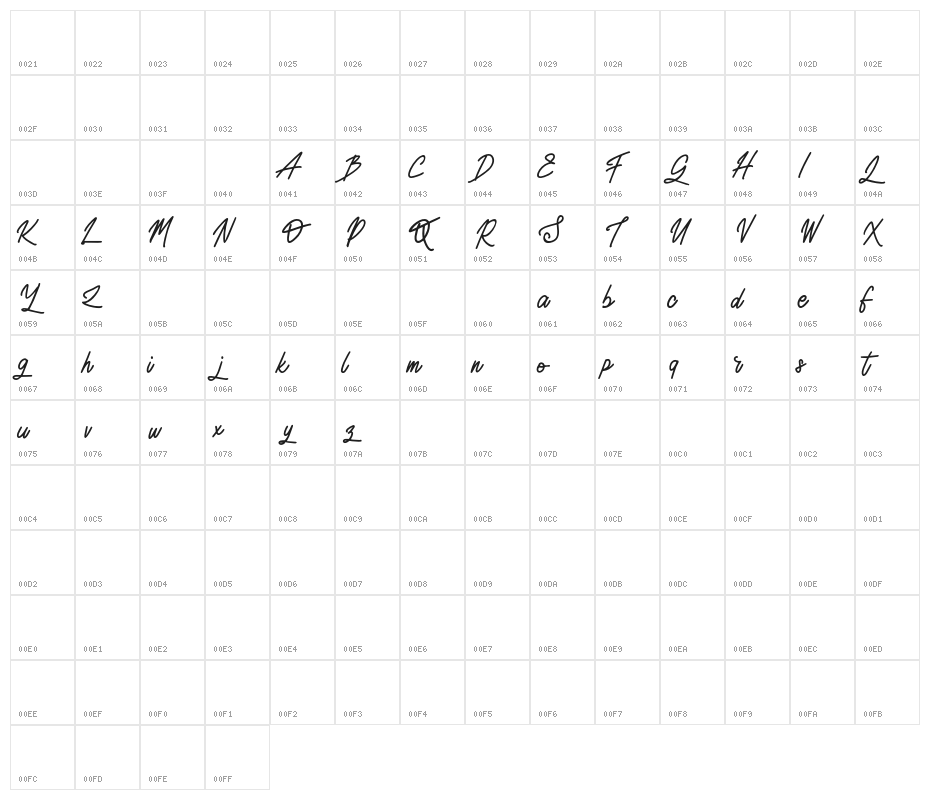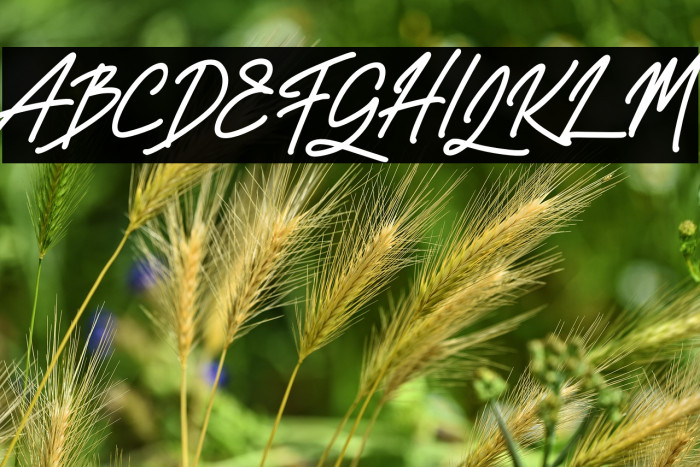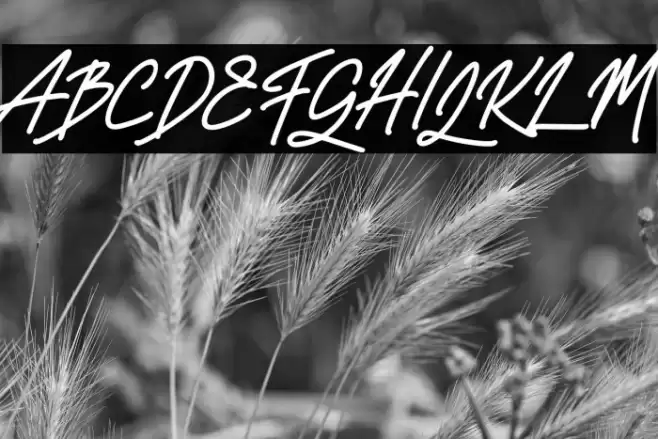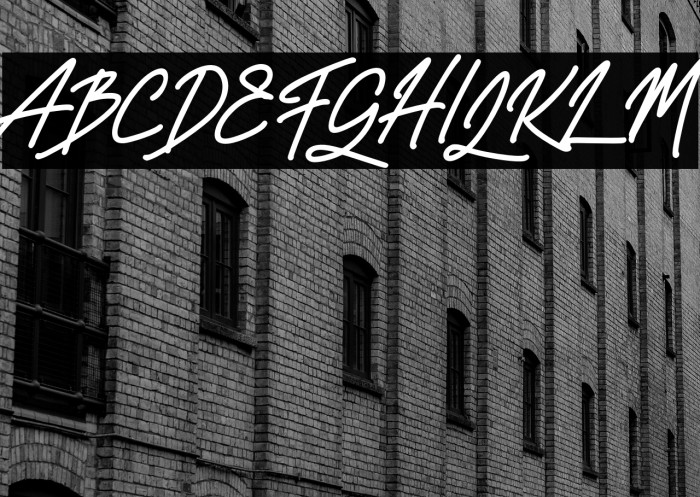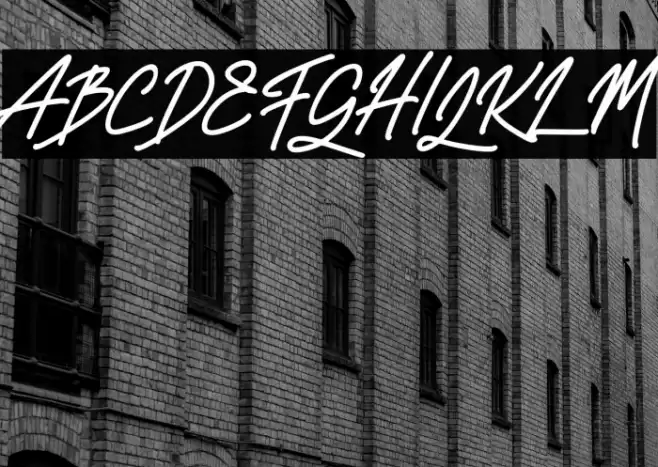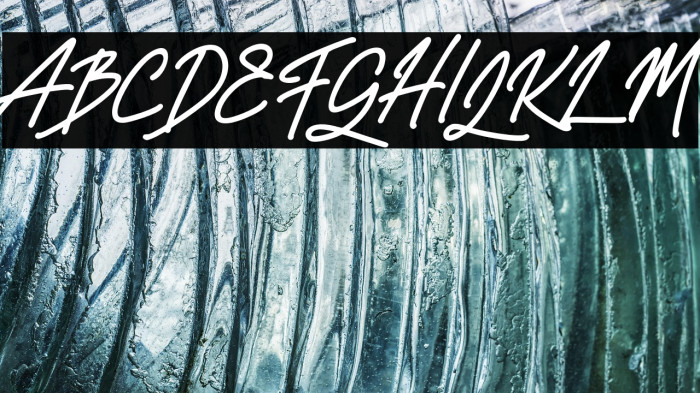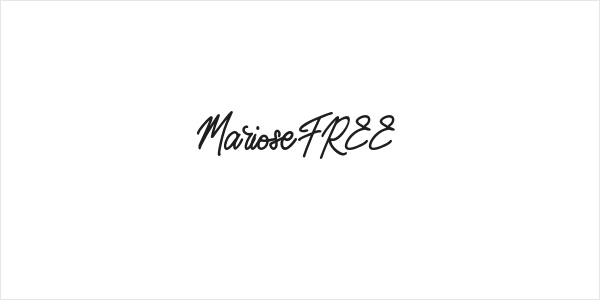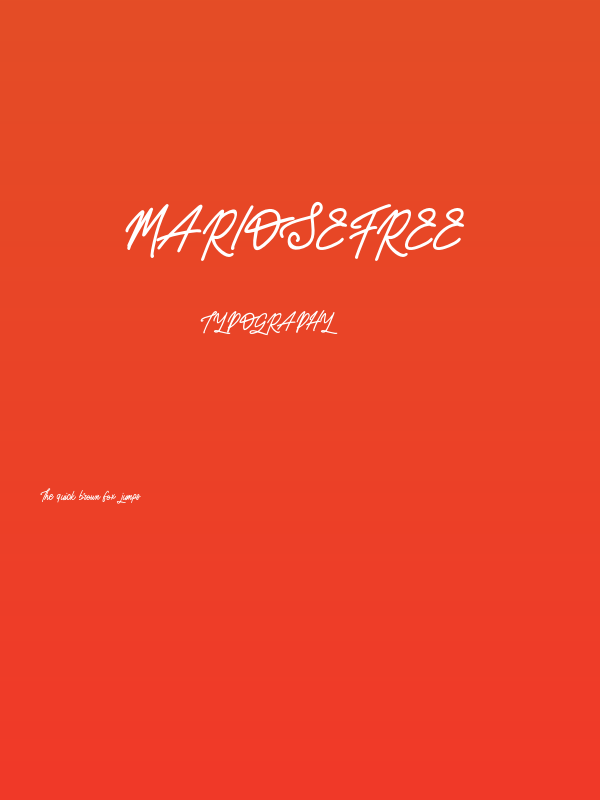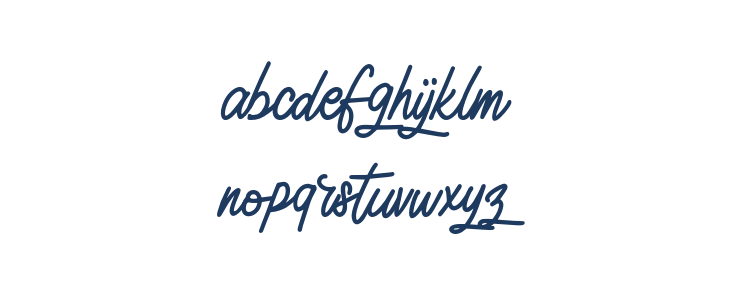
MarioseFREE Font
MarioseFREE Description
This font features a dynamic and fluid script style, characterized by its elegant and flowing letterforms. The uppercase letters are bold and expressive, with distinctive loops and swashes that add a sense of movement and grace. The lowercase letters maintain a consistent style, with smooth curves and a slightly slanted orientation, enhancing the handwritten feel. The font's overall appearance is both stylish and approachable, making it suitable for a variety of creative applications. The characters are well-spaced, ensuring readability while maintaining the artistic flair of the script. This font is ideal for projects that require a personal touch or a sense of elegance and sophistication.